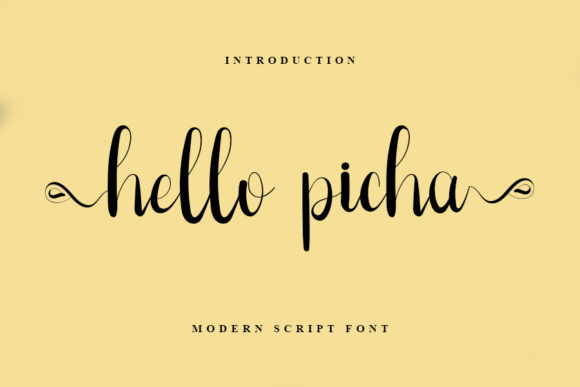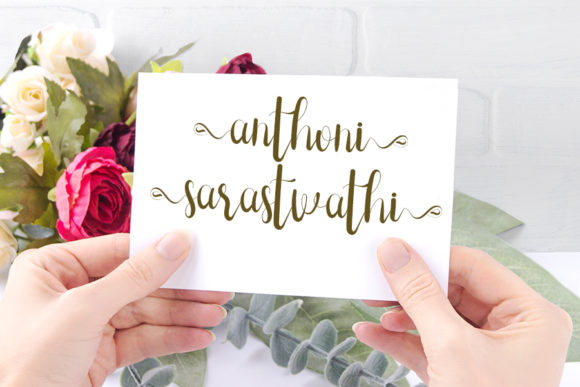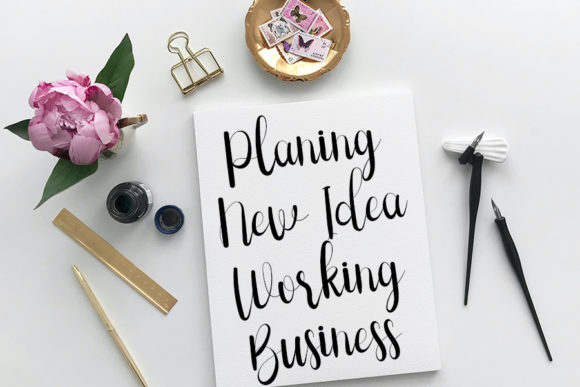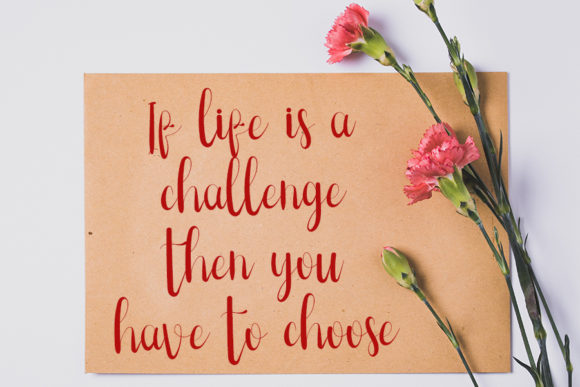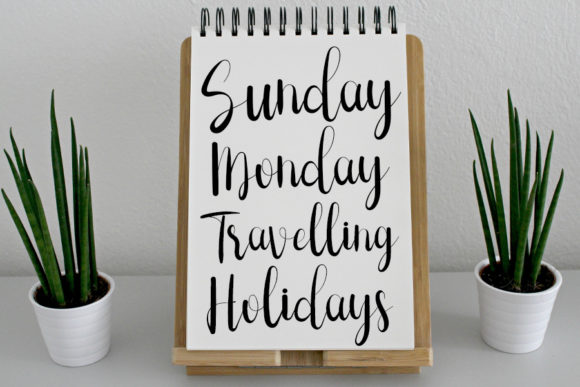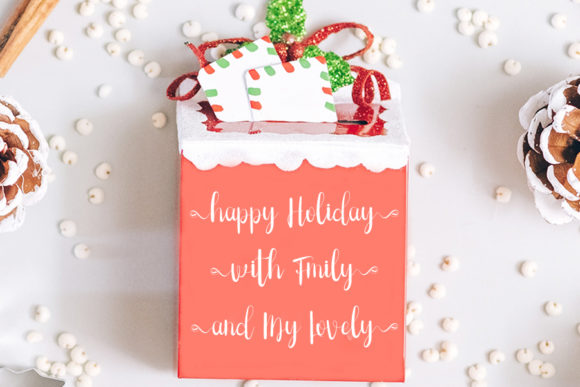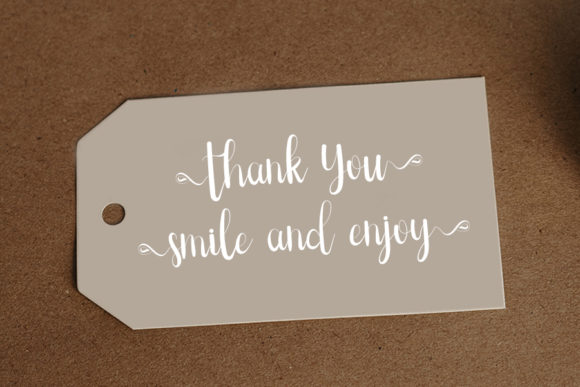
Hello Picha Font
About Hello Picha Font
“Hello Picha” is a pristine and delicate script font that adds a touch of refinement to your creative endeavors. With its clean lines and dainty appearance, this font is a versatile choice whether you’re searching for typography for your social media posts or seeking calligraphy scripts for your DIY projects.
The elegance of “Hello Picha” lies in its ability to transform any ordinary concept into a genuine work of art. Each letter is meticulously crafted to exude a sense of sophistication, making it an ideal companion for a wide range of design applications. Whether you’re designing captivating social media graphics, crafting intricate DIY projects, or even enhancing your personal branding, “Hello Picha” provides a perfect blend of simplicity and beauty.
The font’s PUA encoding further adds to its appeal by granting you easy access to an array of glyphs and swashes. This accessibility allows you to explore creative variations and tailor the font to suit your unique vision effortlessly. Whether you’re adding a graceful flourish to your typography or incorporating charming details into your designs, “Hello Picha” empowers you to create with freedom and finesse.
From chic social media posts to elegant calligraphy-inspired DIY creations, “Hello Picha” elevates every creative idea into an artistic masterpiece. Its clean and dainty nature ensures that your designs convey a sense of refinement and sophistication, captivating your audience and leaving a lasting impression. Whether you’re a design professional or a creative enthusiast, “Hello Picha” offers the tools you need to bring your visions to life in a truly exceptional way.